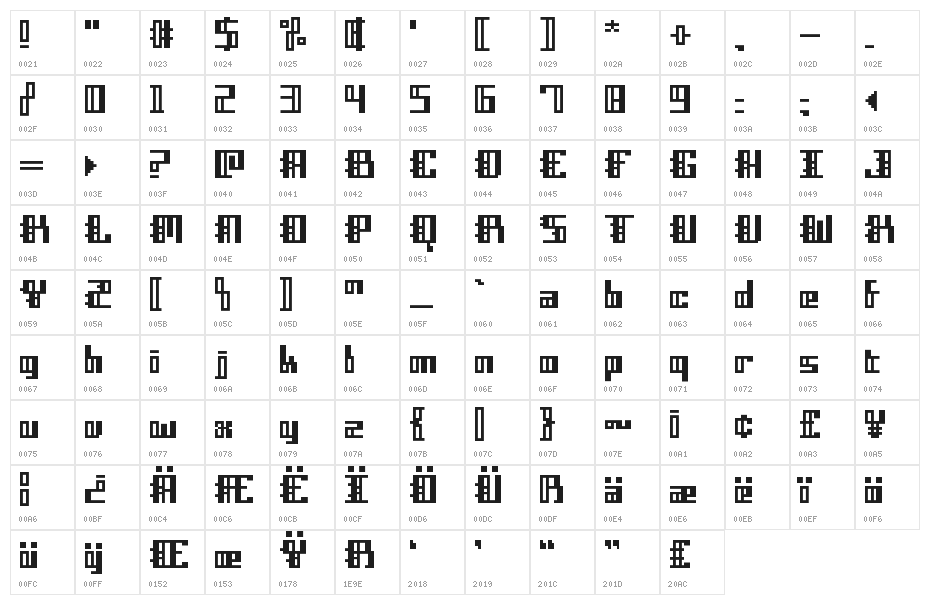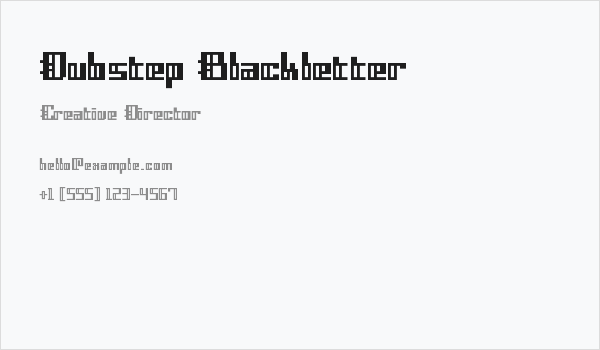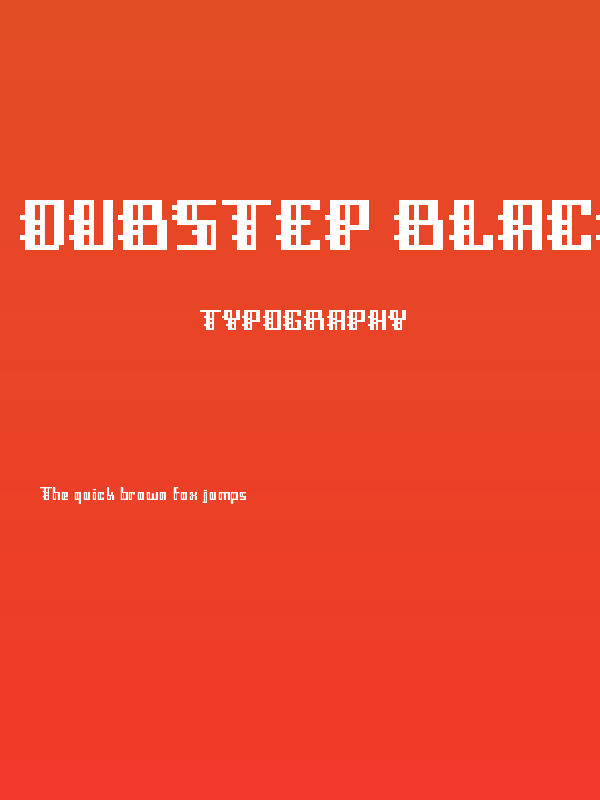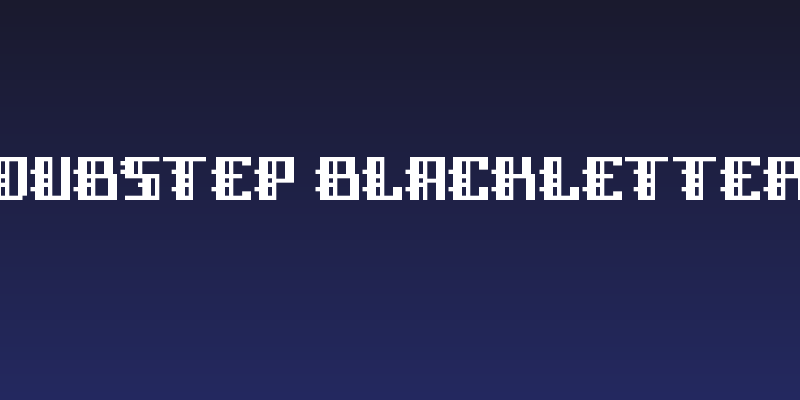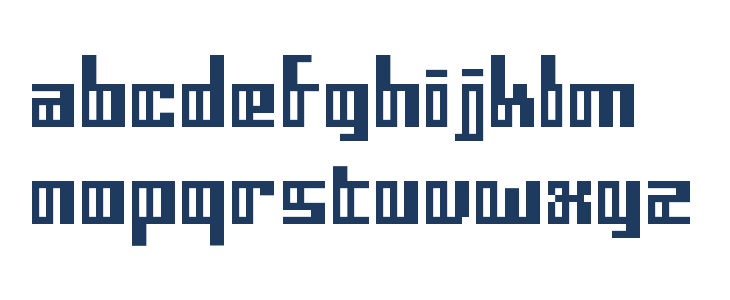
Dubstep Blackletter Font
Dubstep Blackletter Description
This font features a bold and striking design, reminiscent of traditional Blackletter styles but with a modern twist. The characters are constructed with a pixelated, block-like appearance, giving it a digital and edgy feel. The uppercase letters are particularly ornate, with intricate detailing that enhances their visual impact. The lowercase letters maintain a consistent style, offering a cohesive look across the typeface. Numbers and special characters are designed to match the overall aesthetic, ensuring uniformity. This font's unique style makes it stand out, suitable for projects that require a bold statement.
| Proposed Projects | Ideal for digital art, music album covers, video game titles, and edgy branding projects. |